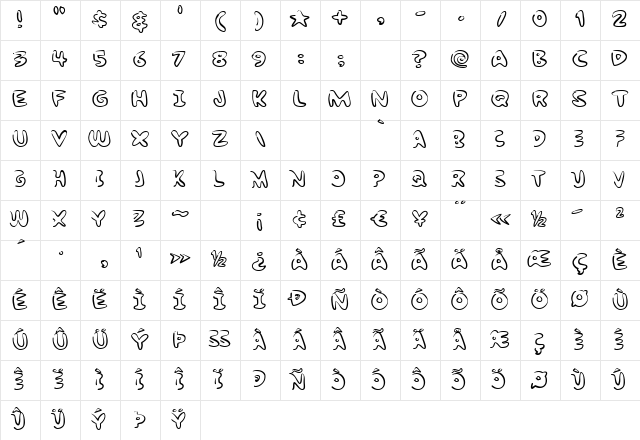
Bubble Gum RockA Regular
Design Context for Bubble Gum RockA Typeface
Bubble Gum RockA trades formality for fun, with bouncy, characterful letterforms that bring warmth and energy to any project.
Font Pairing: Pairs well with a rounded or humanist sans for body copy, maintaining the friendly tone without relying on Bubble Gum RockA to carry extended reading.
Pro Tip: Avoid using Bubble Gum RockA for long passages of text — it works best for headlines, labels, and short calls to action.